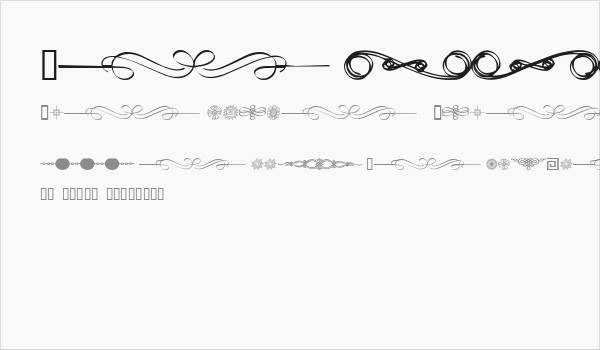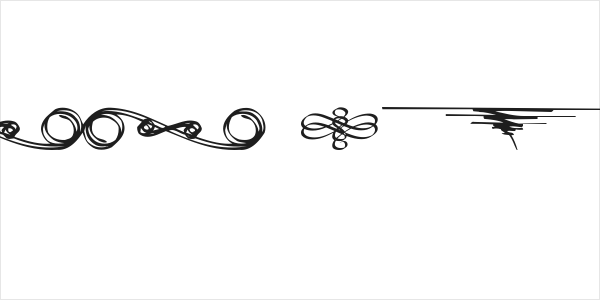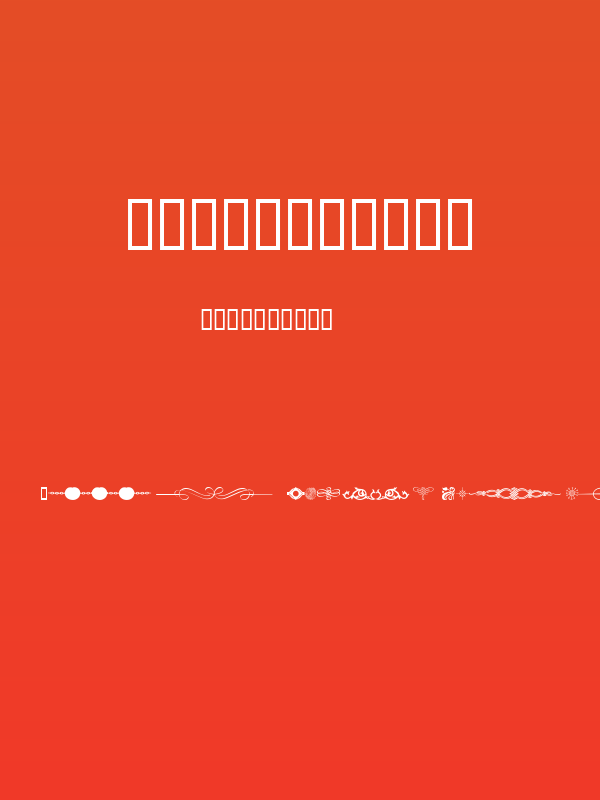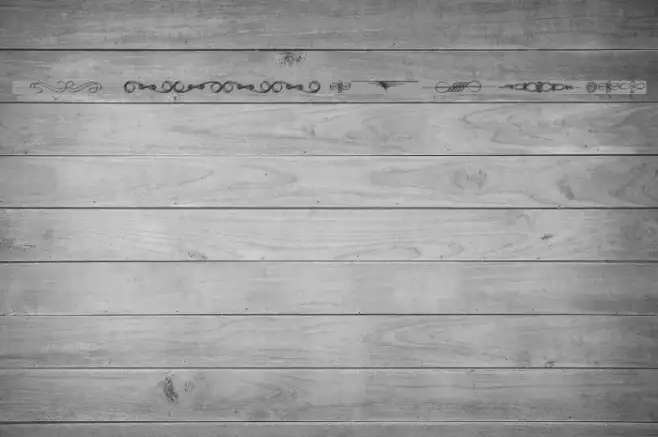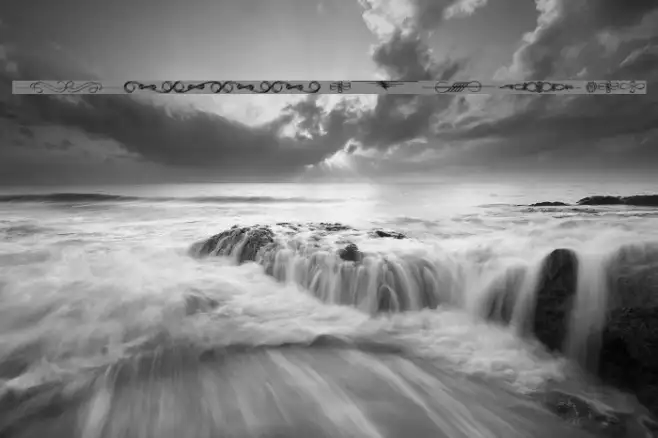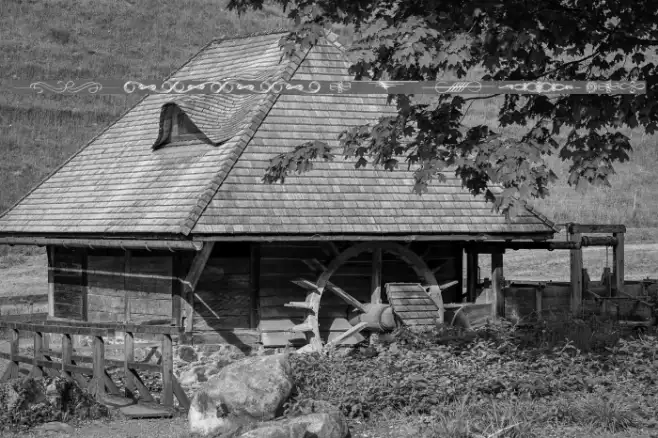
DesignMotif Font
DesignMotif Description
A decorative motif font featuring intricate ornamental flourishes, swirls, and divider elements. The glyphs are highly detailed and designed to be used as embellishments or separators rather than for standard text. The motifs vary in complexity, with both symmetrical and asymmetrical designs, and include elements such as dots, curls, and geometric shapes.
| Overall Style | Decorative, Vintage |
| Use Case | Decorative elements, Borders, Dividers |
| Proposed Projects | Wedding invitations, certificates, greeting cards, book covers, vintage-themed designs, decorative borders. |